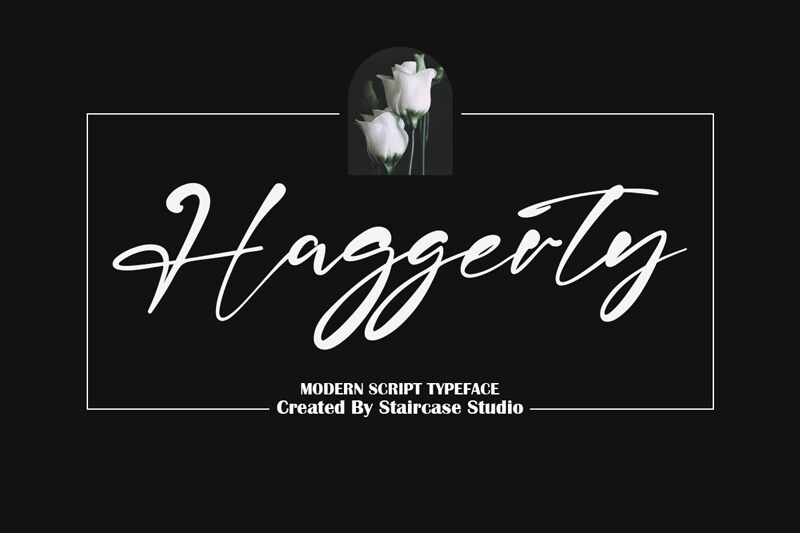
Haggerty
Haggerty, the latest modern script font designed by Staircase Studio, is perfect for your creative projects. Its semi-light weight and flowing curves make it an excellent choice for elegant wedding invitations, sophisticated branding materials, or even eye-catching social media posts. This versatile font can elevate any design with its unique personality and charm. Whether you're a graphic designer or a business owner looking to stand out, Haggerty is the perfect addition to your font collection. Try it out today and see how it can add a touch of class to your next project!